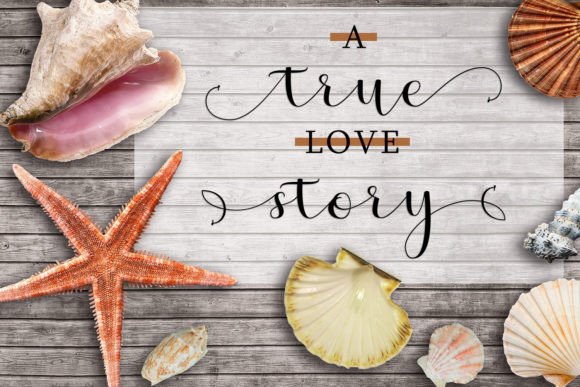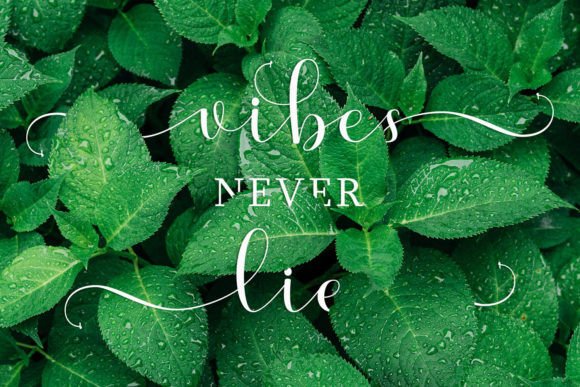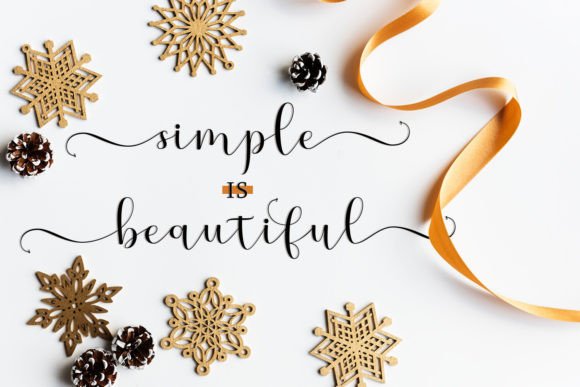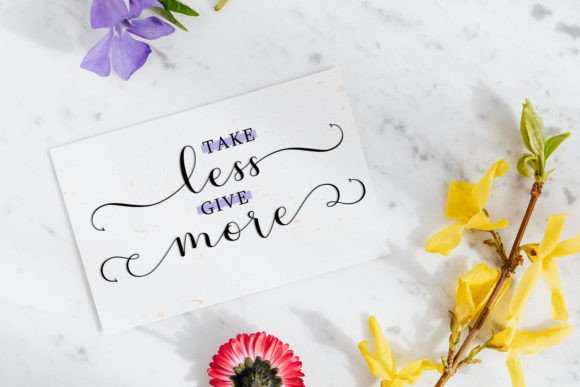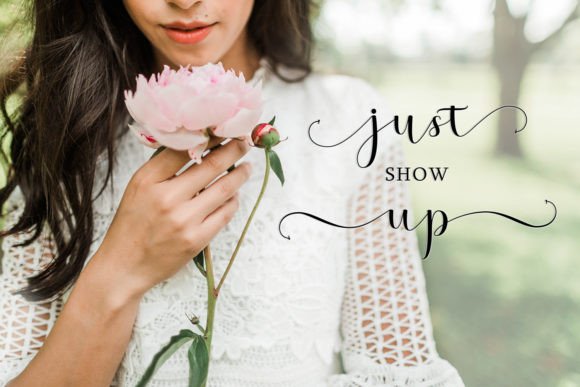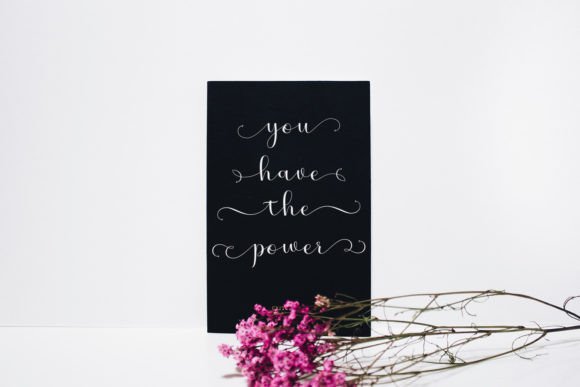
Introducing Allifa Font: The Perfect Handwritten Touch for Your Designs
Are you a designer or crafter looking for a font that exudes elegance and charm? Look no further than Allifa Font! This beautiful handwritten font is perfect for adding a personal touch to your designs, and its versatility makes it suitable for a wide range of projects.
The Charm of Allifa Font
Allifa Font feels equally charming and elegant, making it an excellent choice for designs that require a sophisticated and refined look. Its flowing script and delicate lines create a sense of luxury and whimsy, perfect for capturing the attention of your audience. Whether you’re designing wedding invitations, thank you cards, quotes, or greeting cards, Allifa Font is sure to impress.
One of the best things about Allifa Font is its versatility. It looks stunning on a variety of design projects, including:
- Wedding invitations: Add a touch of romance and elegance to your wedding invitations with Allifa Font.
- Thank you cards: Express your gratitude in style with this beautiful handwritten font.
- Quotes: Make your quotes stand out with Allifa Font’s elegant script.
- Greeting cards: Create beautiful and personalized greeting cards for any occasion.
- Logos: Add a touch of sophistication to your logo with Allifa Font.
- Business cards: Stand out from the crowd with this unique and elegant font.
Why Choose Allifa Font?
So, why choose Allifa Font for your design projects? Here are just a few reasons:
- Unique and elegant design: Allifa Font stands out from other fonts with its beautiful handwritten script.
- Versatile: Suitable for a wide range of design projects, from wedding invitations to logos.
- High-quality: Professionally designed to ensure a high level of quality and consistency.
Tips for Using Allifa Font
Here are a few tips for using Allifa Font in your design projects:
- Pair with other fonts: Experiment with pairing Allifa Font with other fonts to create a unique and visually appealing design.
- Use in combination with images: Add an extra layer of depth to your design by combining Allifa Font with images or graphics.
- Play with colors: Experiment with different colors to find the perfect match for your design.
Allifa Font is a beautiful and elegant handwritten font that’s perfect for designers and crafters looking to add a personal touch to their designs. With its versatility, PUA encoding, and high-quality design, it’s an excellent choice for a wide range of projects. Whether you’re designing wedding invitations, logos, or greeting cards, Allifa Font is sure to impress. So why not give it a try and see the difference it can make in your designs?